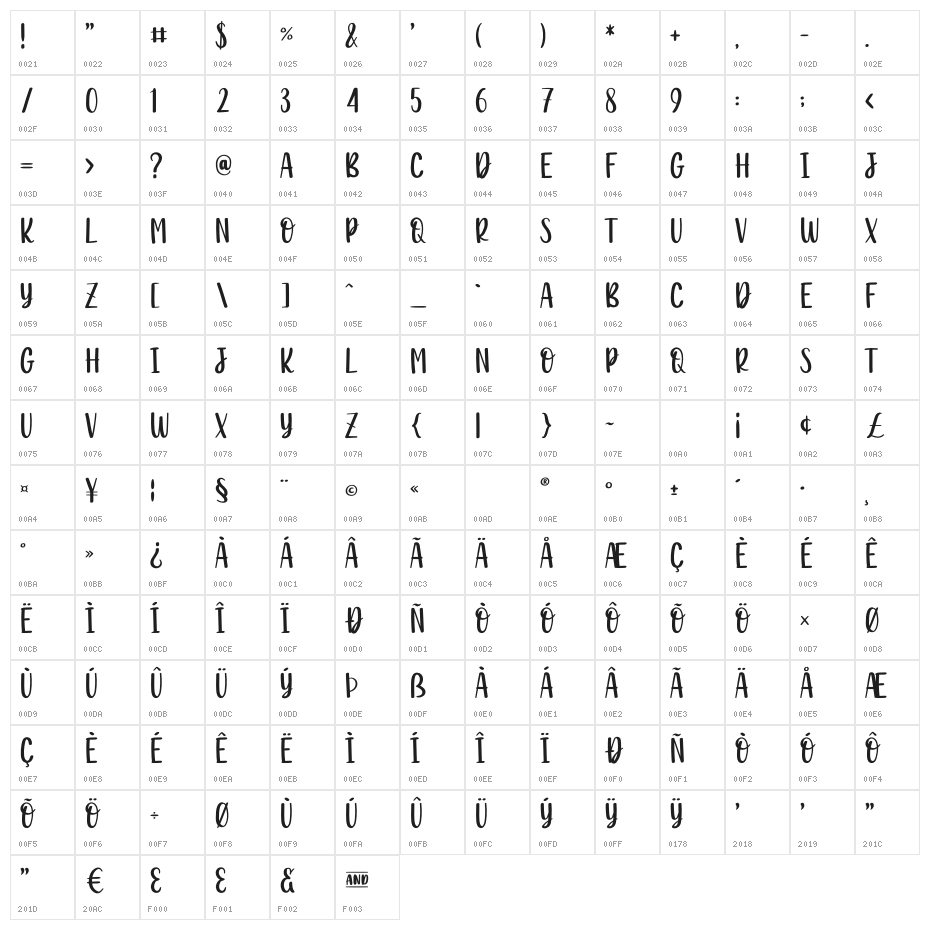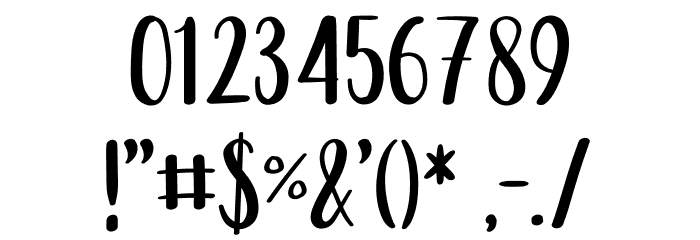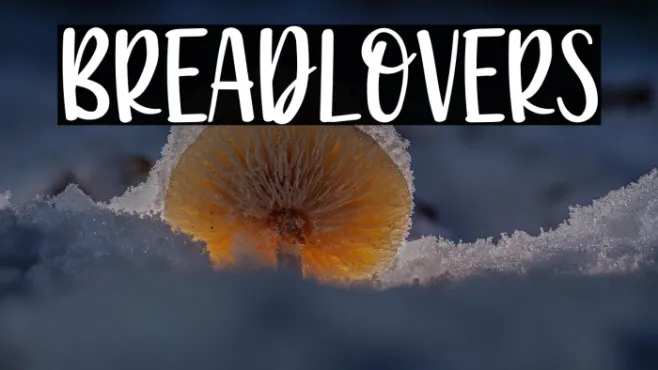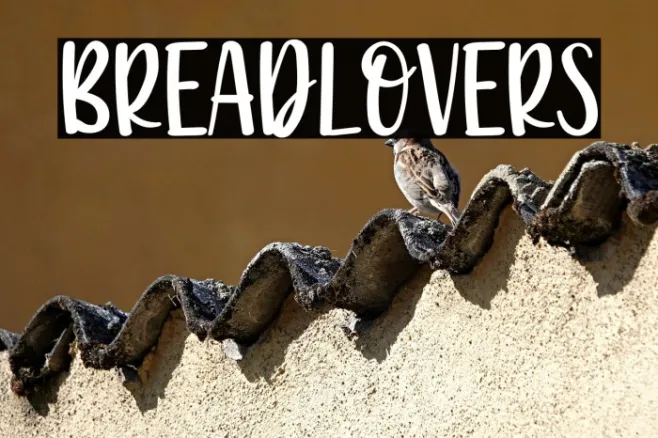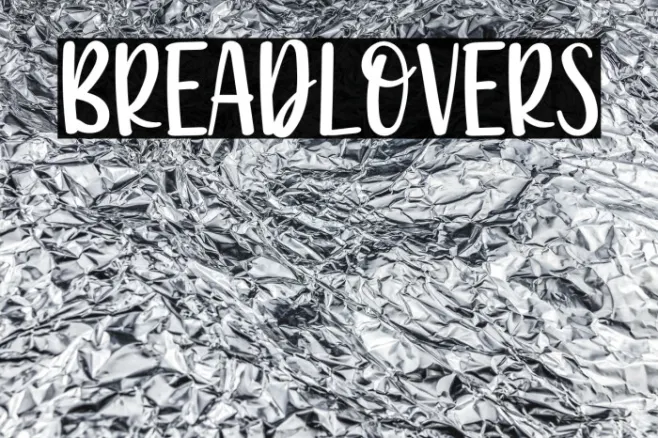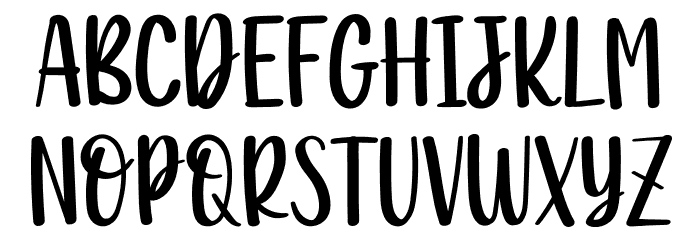
Breadlovers Font
Breadlovers Description
This font features a playful and energetic handwritten style, characterized by its bold and slightly irregular letterforms. The uppercase and lowercase letters maintain a consistent flow, with rounded edges and a casual, friendly appearance. The numbers and special characters complement the alphabet with the same lively and informal aesthetic. The strokes are thick and uniform, providing a strong visual impact that is both approachable and dynamic. This font is perfect for projects that require a personal touch or a sense of fun and creativity.
| Overall Style | Playful, Casual |
| Proposed Projects | Ideal for greeting cards, children's books, playful branding, and social media graphics. |